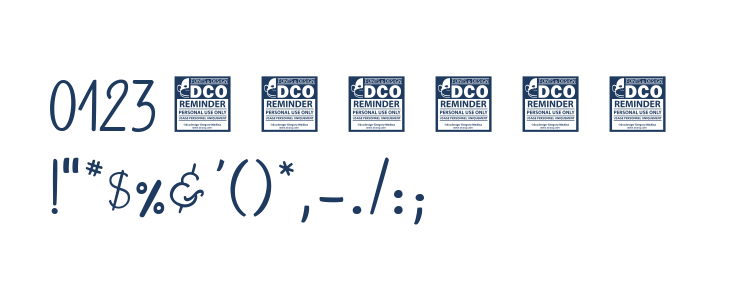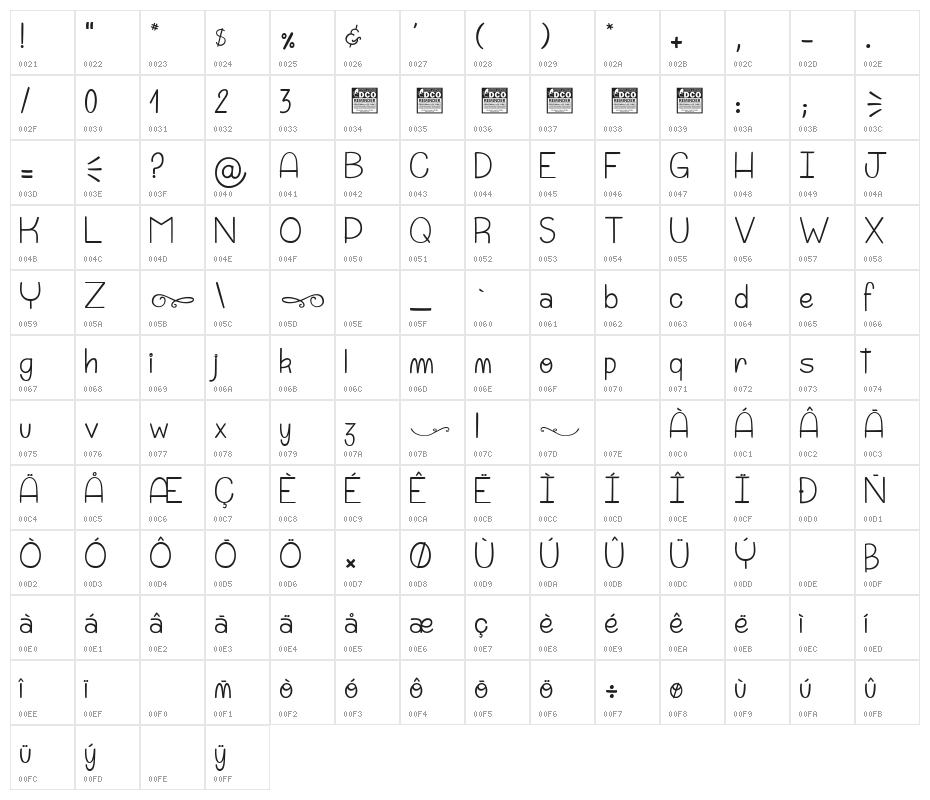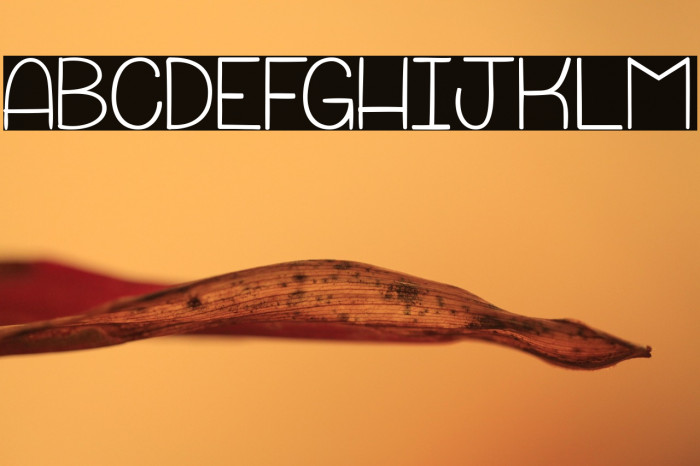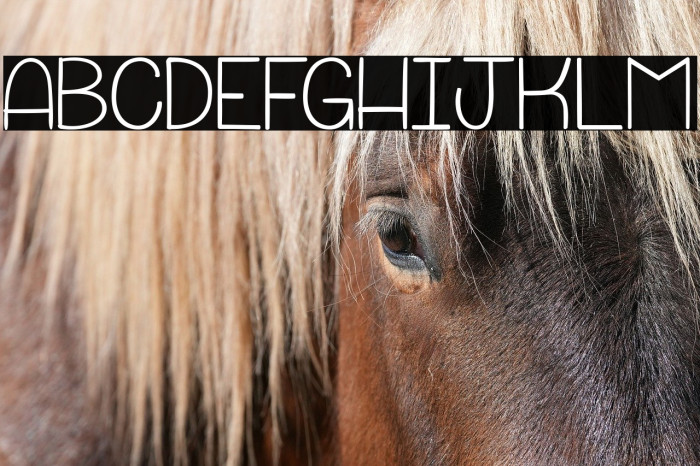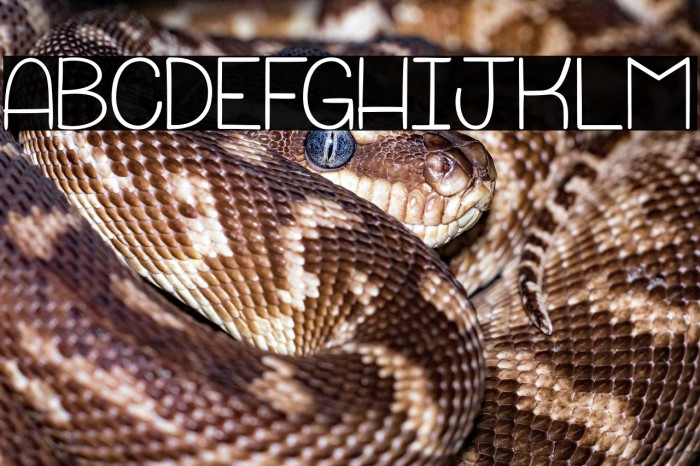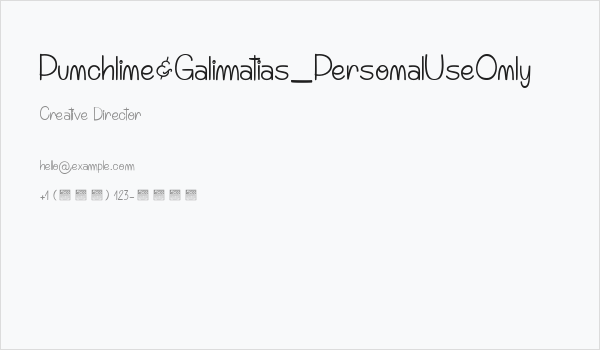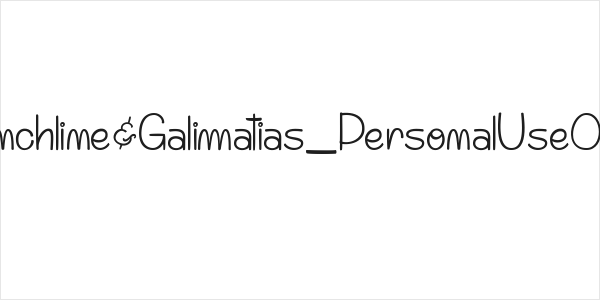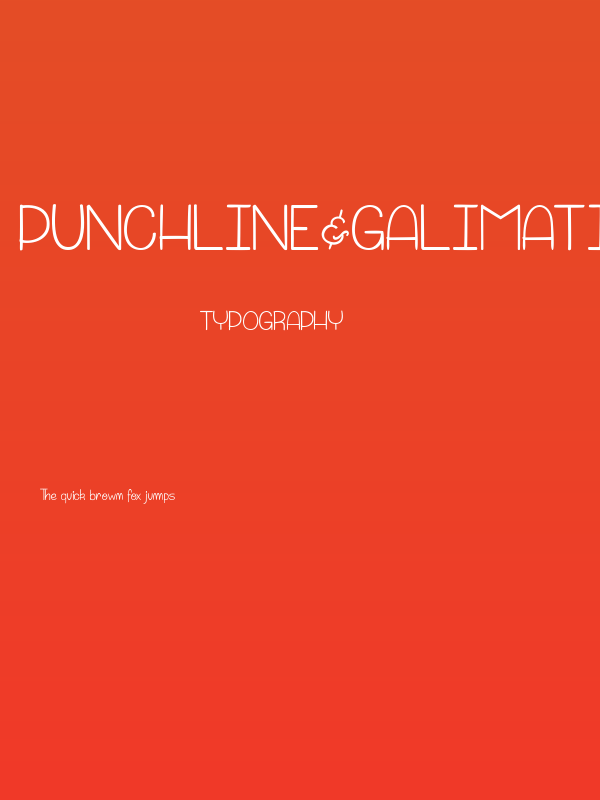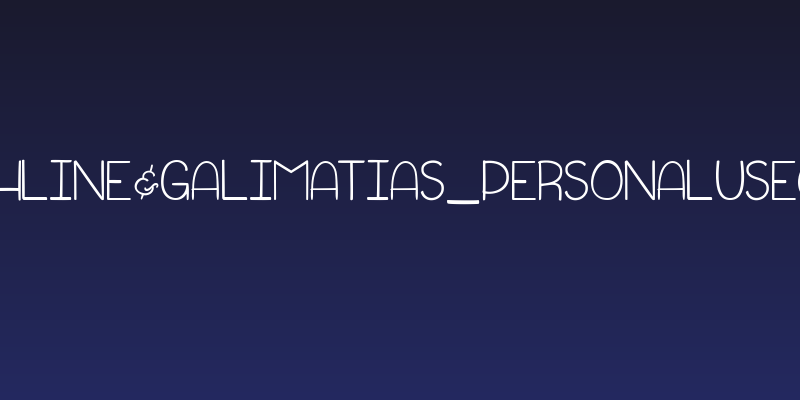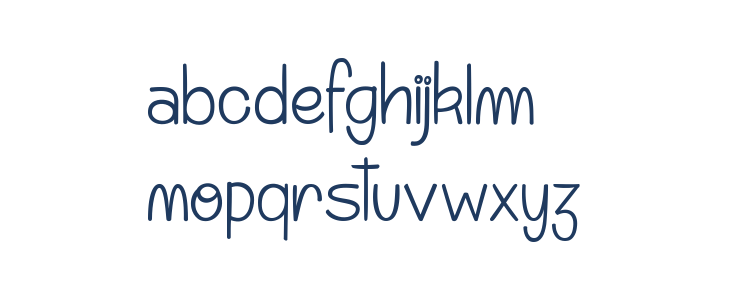
Punchline&Galimatias_PersonalUseOnly Font
Punchline&Galimatias_PersonalUseOnly Description
This font features a playful and whimsical style with a handwritten appearance. The characters are elongated and slightly irregular, giving it a casual and friendly vibe. The uppercase letters are tall and narrow, while the lowercase letters maintain a consistent height with rounded edges. The numbers follow the same playful style, ensuring consistency throughout. Special characters are creatively designed, adding to the font's unique personality. This font is ideal for projects that require a touch of fun and creativity, such as children's books, greeting cards, or playful branding.